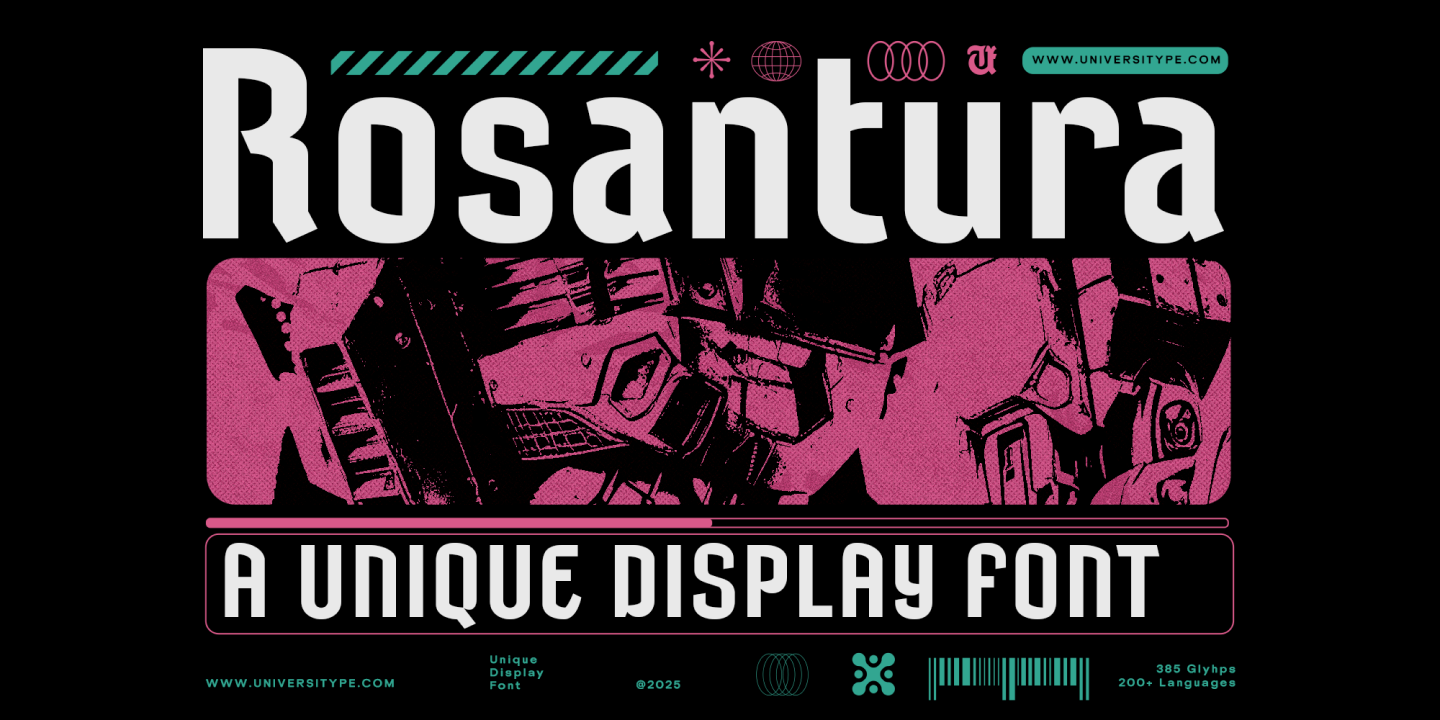
UT Rosantura
Designed by Ahmad Muzayyin Syarkawi, Novan Arisandi, Muh Aswar and Andi Syahdang, UT Rosantura is a sans serif font family published by Universitype.
Unveiling the brilliance of UT Rosantura, an enthralling display font that seamlessly ties the intricate refinement of Blackletter with San Serif’s effortless elegance. UT Rosantura stands as more than just a font; it’s a typographical instrument infusing your design projects with a distinctive flair and substance like none other.
Tailored with precision, UT Rosantura is an ideal companion for graphic designers, typographers, and creative professionals seeking an exceptional typeface to enliven their artwork. Offering unrivaled versatility, this font embraces both personal and commercial projects, striking a chord with an international audience that appreciates the synchrony of classical and contemporary trends in design.
Standout Features:
Multilingual Mastery – Comprehensive cover of 200+ languages with an array of 385 glyphs.
Versatile Valor – Perfect for a variety of display purposes such as branding, headings, and posters.
Clear Command – Captures attention with impeccable readability, even at larger sizes, presenting your messages effectively.
Tailored Transitions – Available in diverse styles and sizes to accommodate a spectrum of design prerequisites.
Aesthetic Allure – An artful amalgamation of Blackletter and San Serif, manifesting a timeless yet modern charm.
The driving force behind UT Rosantura originates from the rich heritage of Blackletter, renowned for its complex and splendid design mingled with the streamlined elegance of San Serif, representing modern minimalism at its best. This creative merger crafts a typeface that stands rooted in history yet strides towards the future, making it an impeccable choice for multi-faceted projects bridging the past and present.
Designers Ahmad Muzayyin Syarkawi, Novan Arisandi, Muh Aswar, Andi Syahdang